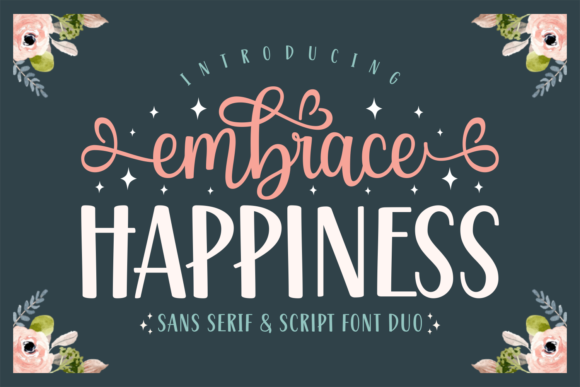
In the sprawling realm of artistic expression, there exists a font family that captures the essence of joy and affection like no other - Embrace Happiness. This exquisite creation by Jasm of 7NTypes is a symphony of elegantly flowing strokes and playful flourishes, inviting you to express your love and happiness in a way that resonates with every heart.
Embrace Happiness is not merely a collection of fonts; it's an emotional escapade, a journey through the kaleidoscope of human connections. Each letter, each glyph, each meticulously crafted detail is imbued with a sense of warmth, tenderness, and pure exuberance. Whether you're a seasoned designer, a budding artist, or simply someone who cherishes the art of heartfelt communication, Embrace Happiness will awaken your creative spirit and ignite your passion for self-expression.
Picture this: a love letter penned with the graceful curves of Embrace Happiness, each word flowing seamlessly into the next, carrying with it a symphony of emotions. The recipient's heart will flutter with delight as they trace the elegant lines, feeling the depth of your affection in every stroke. Or imagine a wedding invitation adorned with the whimsical charm of Embrace Happiness, its playful swashes adding a touch of enchantment to this special occasion. The joy of your union will radiate through every letter, setting the tone for a lifetime of happiness.
The versatility of Embrace Happiness extends far beyond the realm of love letters and wedding invitations. Its cheerful nature lends itself perfectly to a wide range of creative projects, from heartwarming greeting cards and cheerful party flyers to whimsical logos and captivating social media posts. With Embrace Happiness, your designs will exude an infectious positivity that captivates and inspires.
In the digital age, where communication often feels impersonal and detached, Embrace Happiness offers a refreshing antidote. It's a font that breathes life into your words, infusing them with a tangible sense of emotion. Whether you're crafting a heartfelt message to a loved one, designing a heartwarming invitation, or simply adding a touch of cheer to your everyday correspondence, Embrace Happiness will transform your words into works of art that resonate with the soul.
Embrace Happiness is not just a font; it's an experience. It's an invitation to embrace the beauty of human connection, to celebrate the joy of life, and to share your happiness with the world. Let Embrace Happiness be your creative companion, guiding you on a journey of self-expression and emotional resonance.